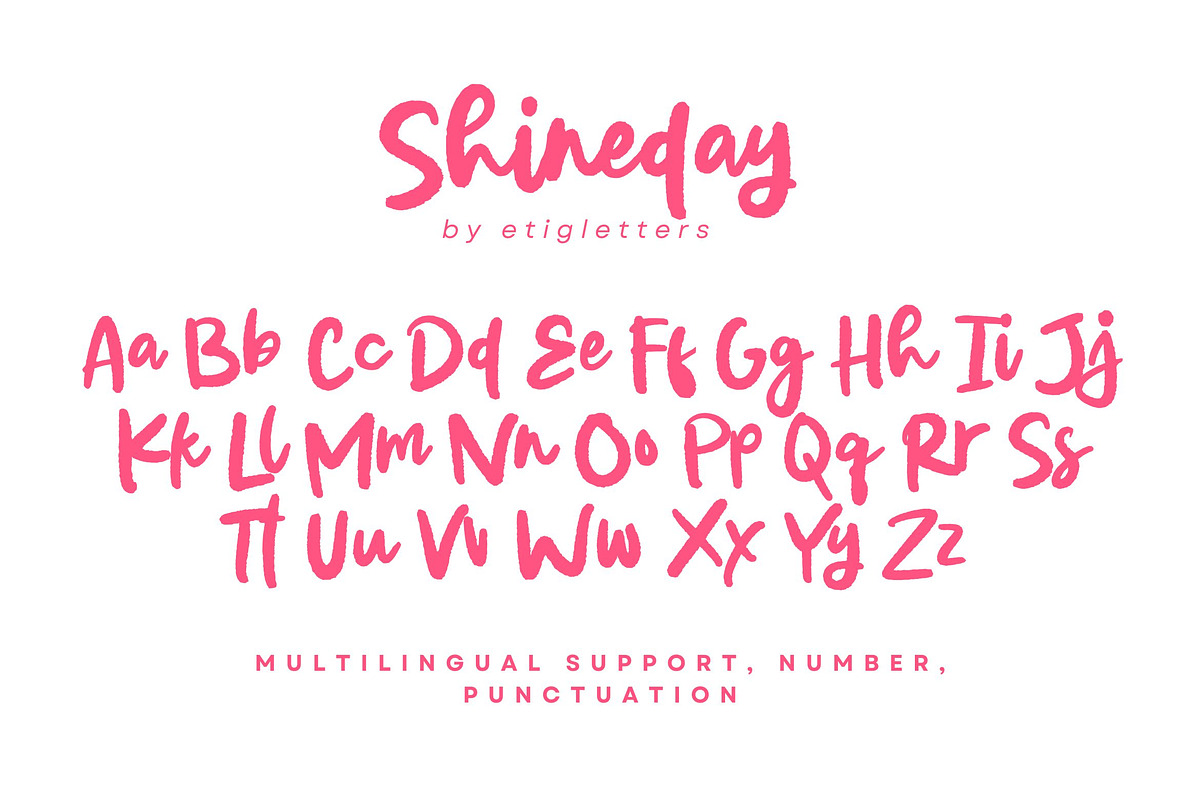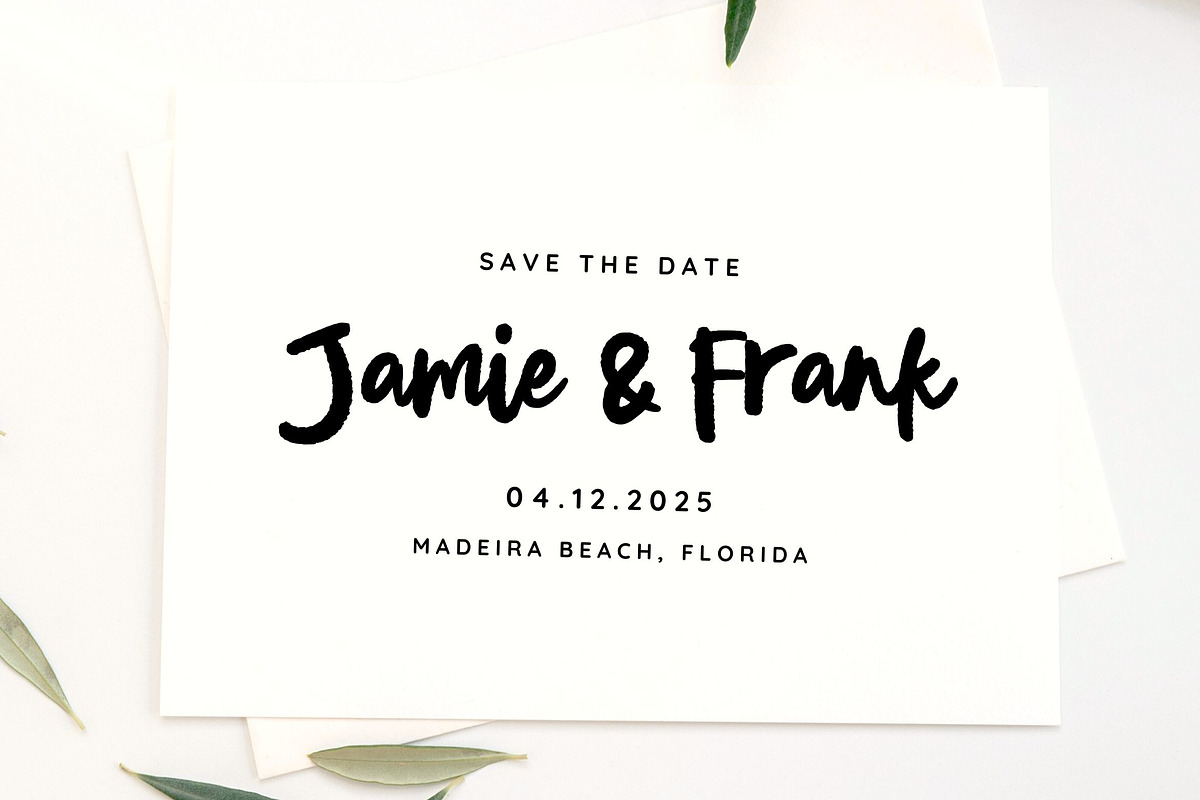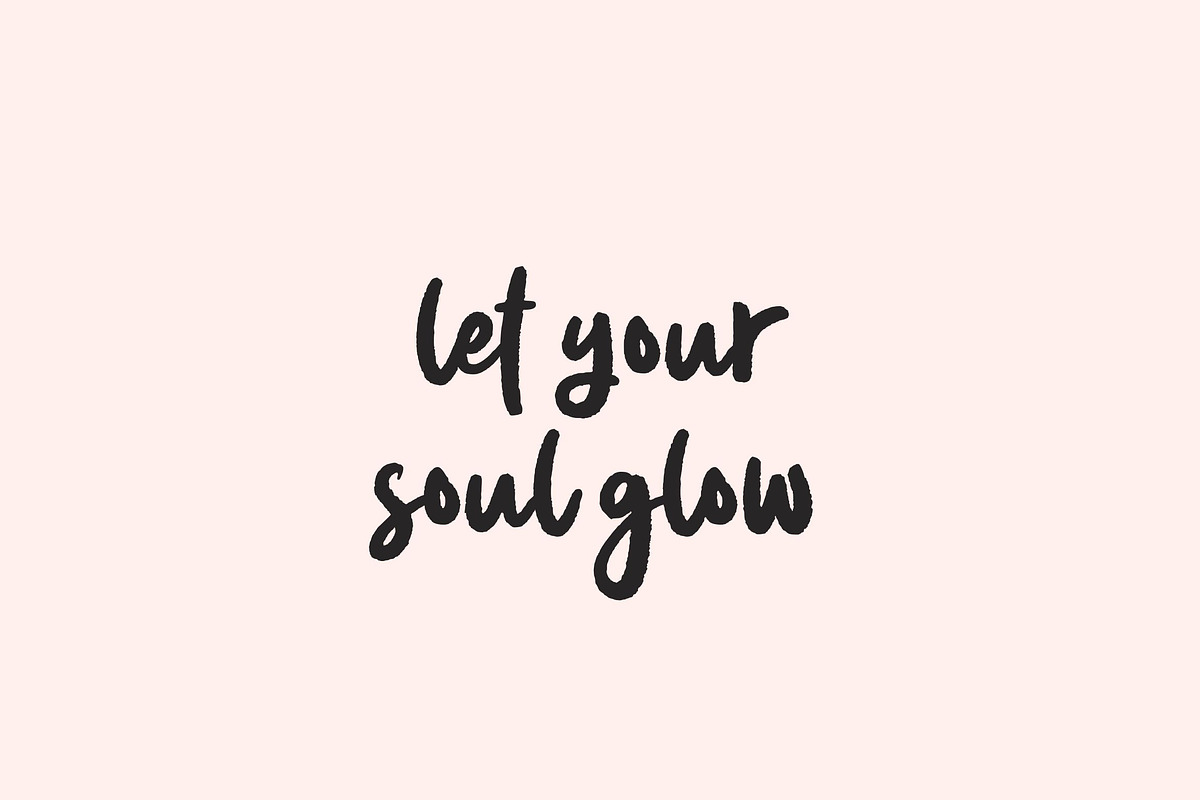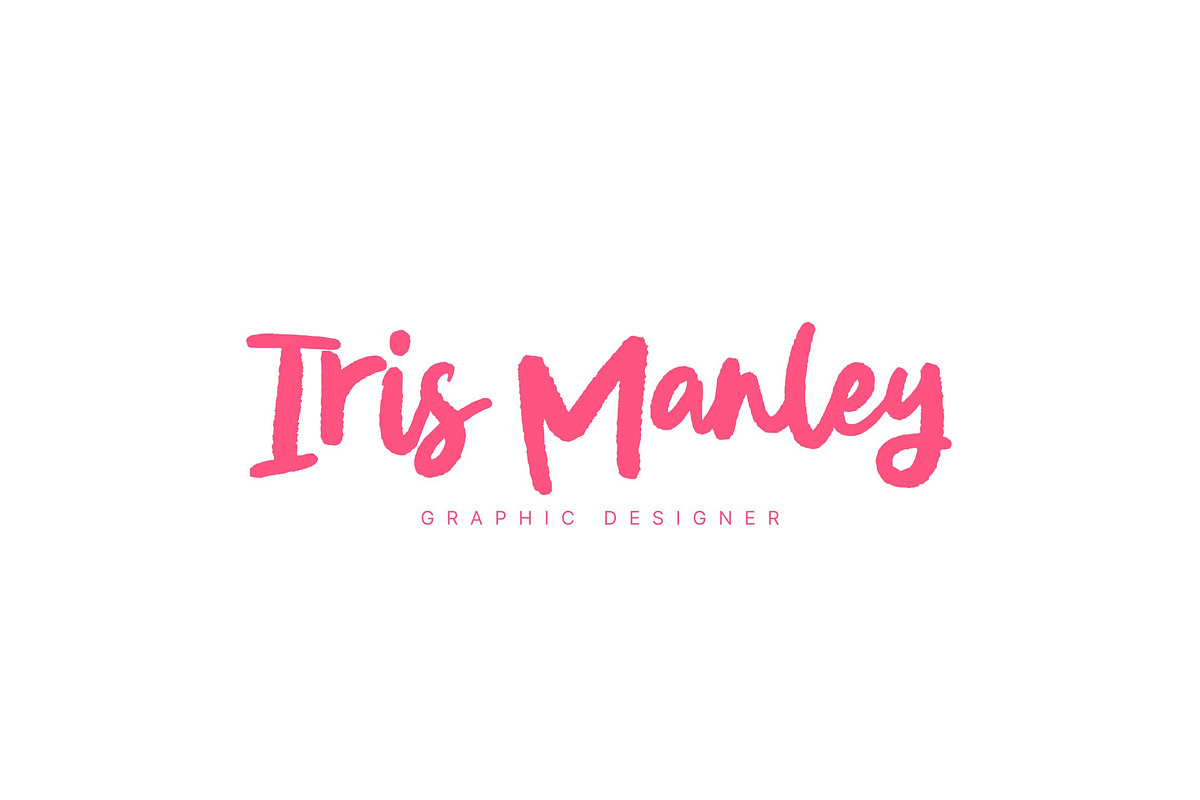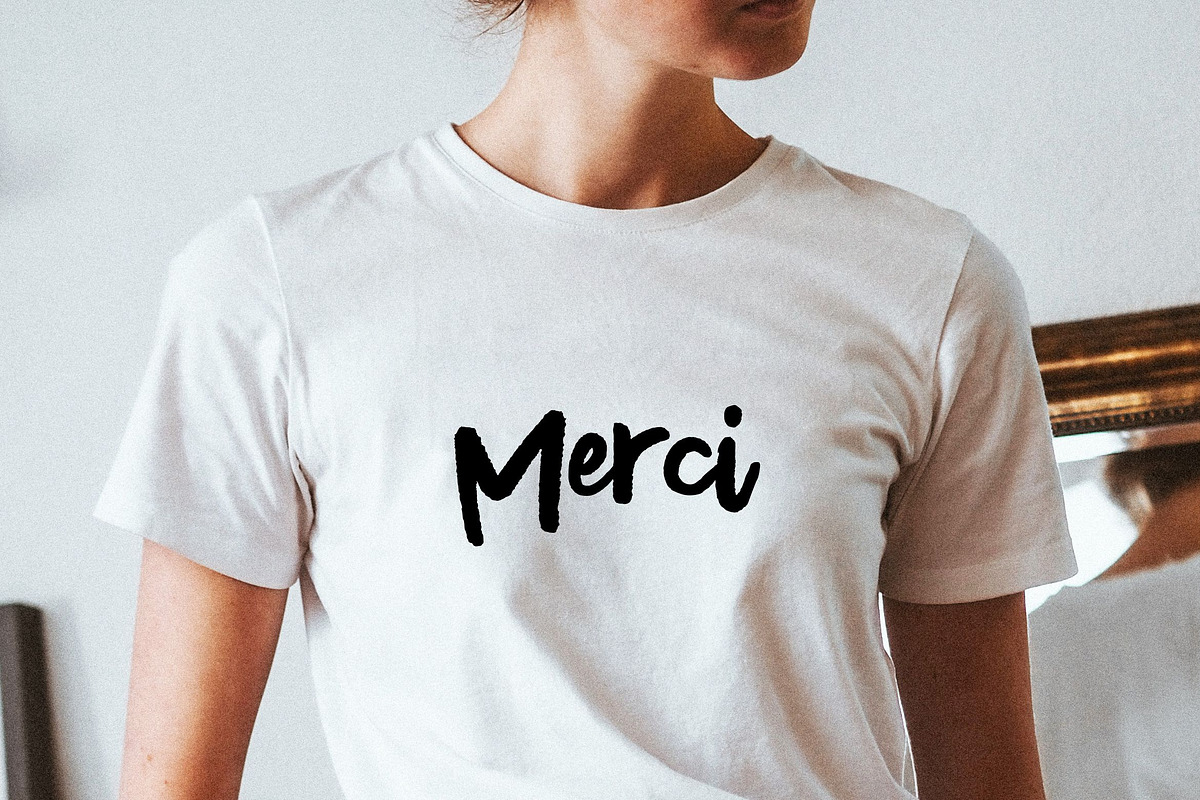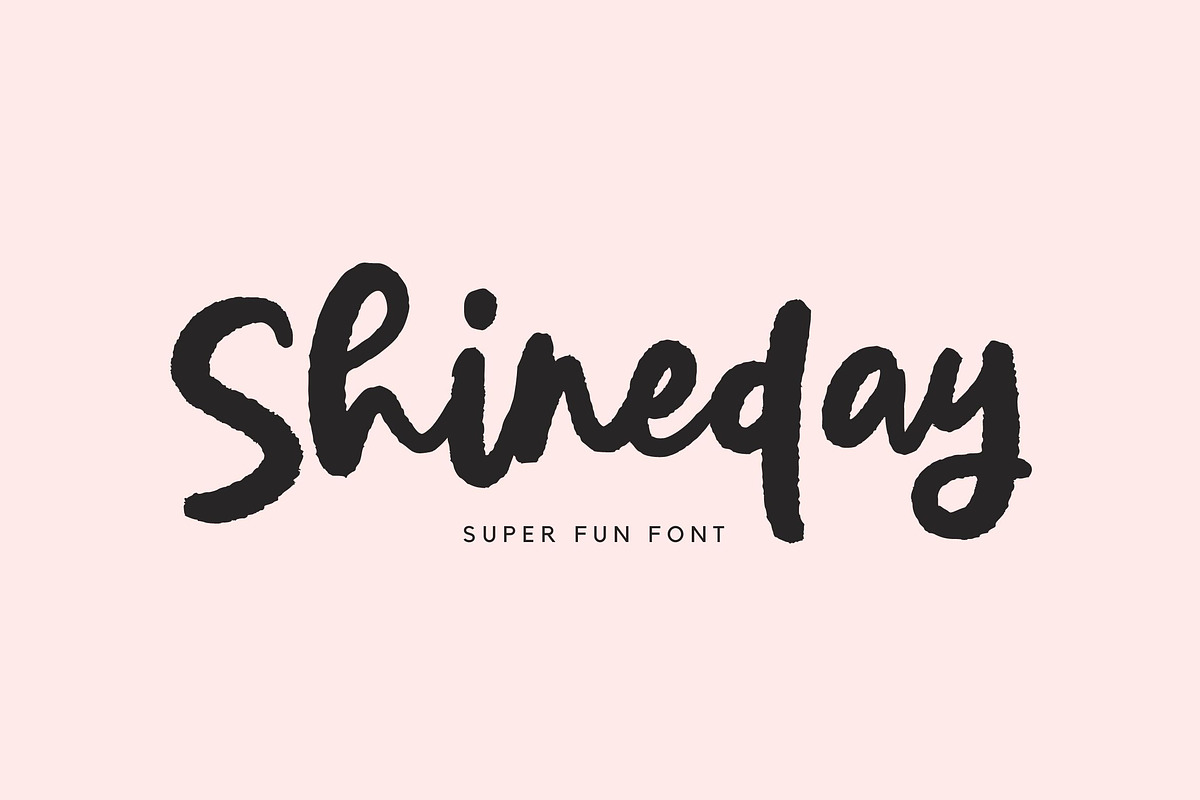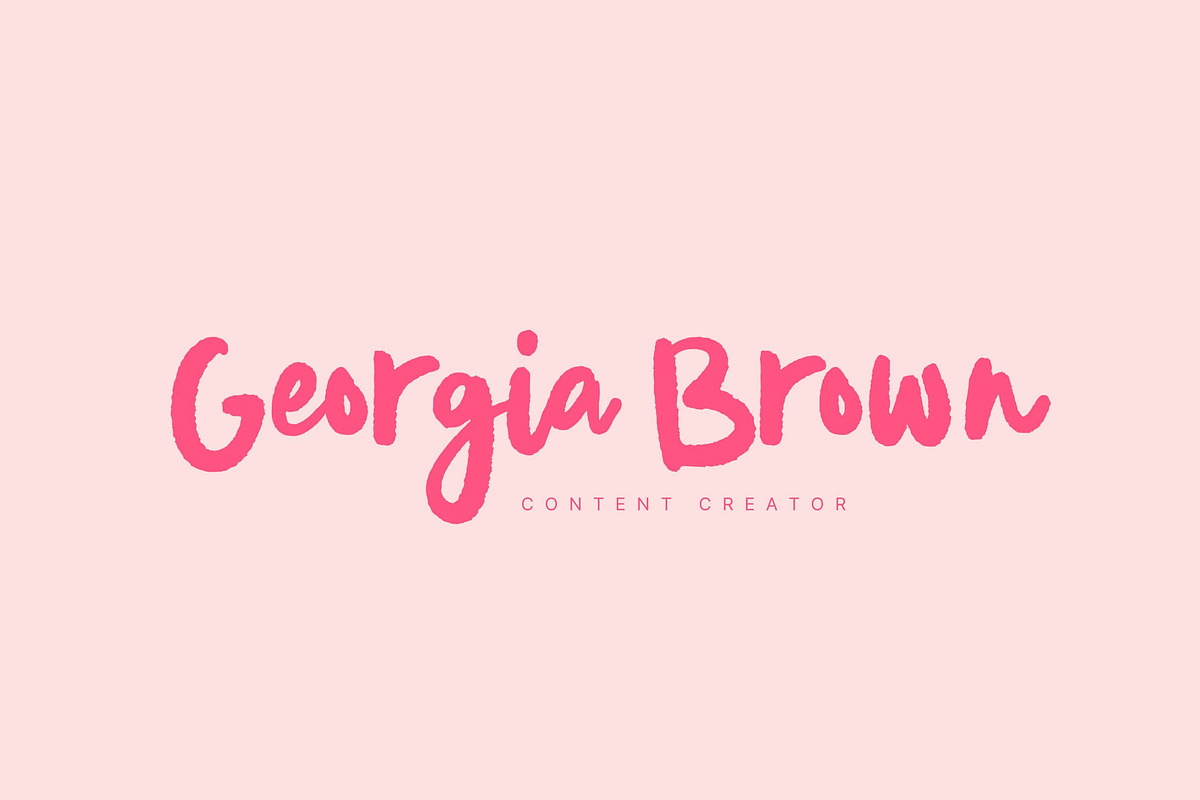
Shineday
Introducing, Shineday - is a bold handwritten script font. This font is perfect for svg designs, shirts, branding, ornaments, shirts, mugs, headings, blogs, logos, invitations and more!
This font also suitable to be combined with san serif that will make your design more perfect. Also already PUA Encoded!